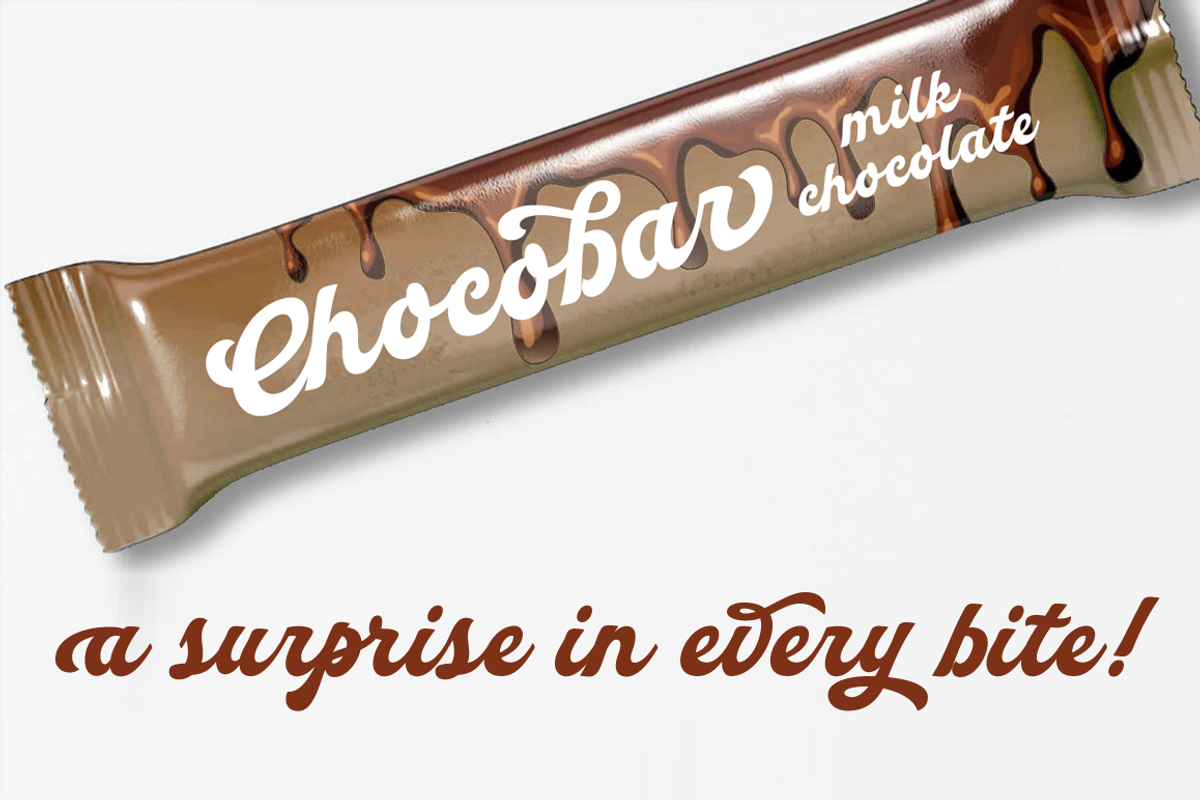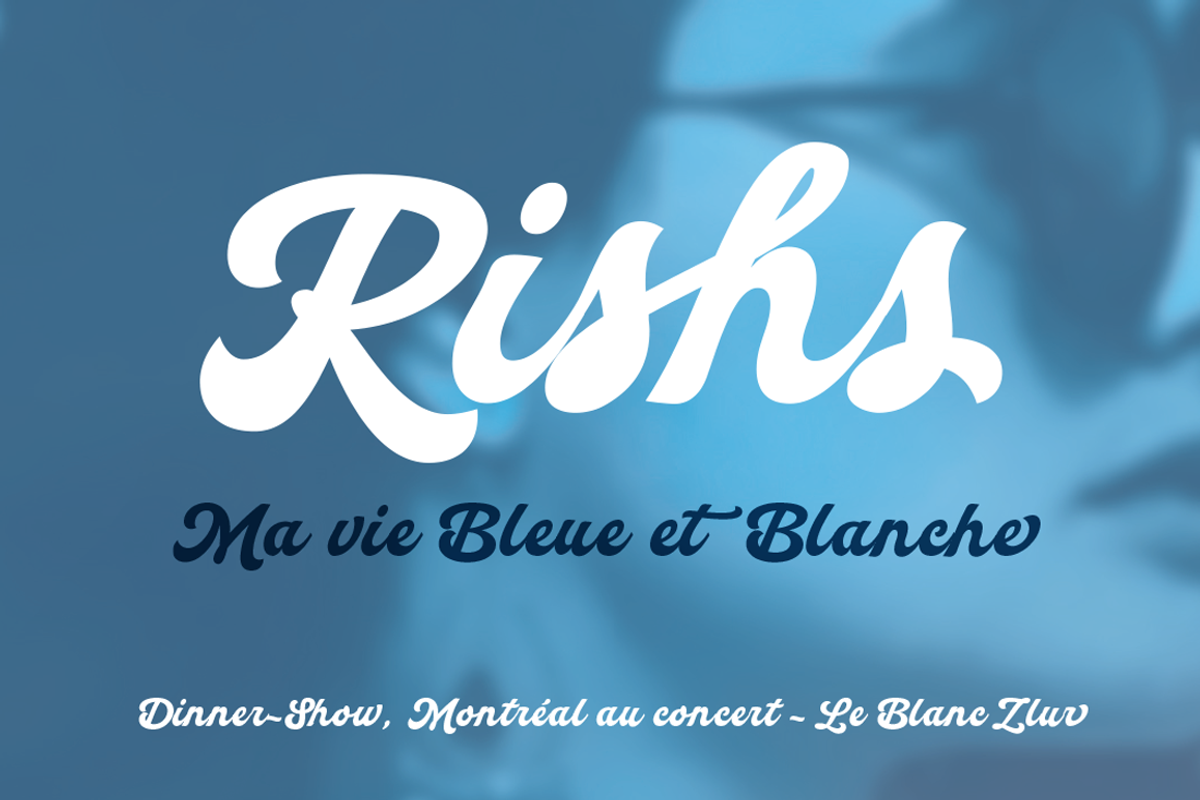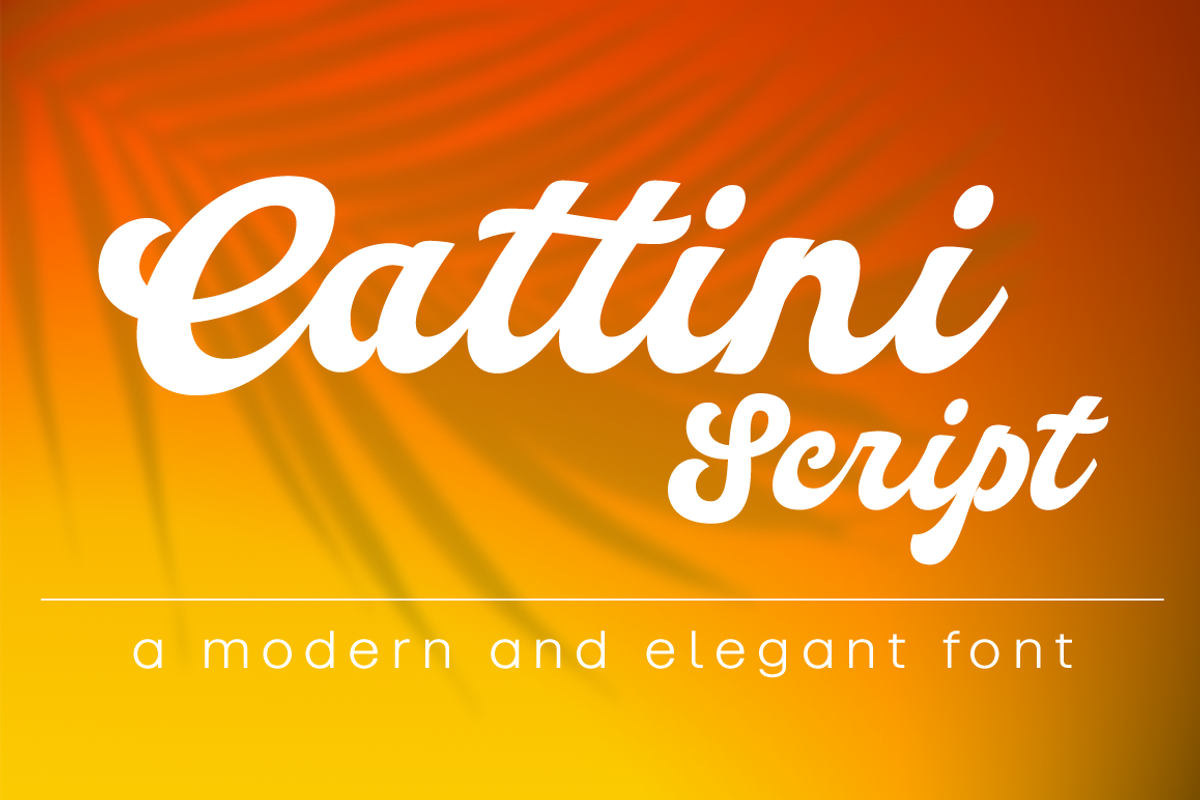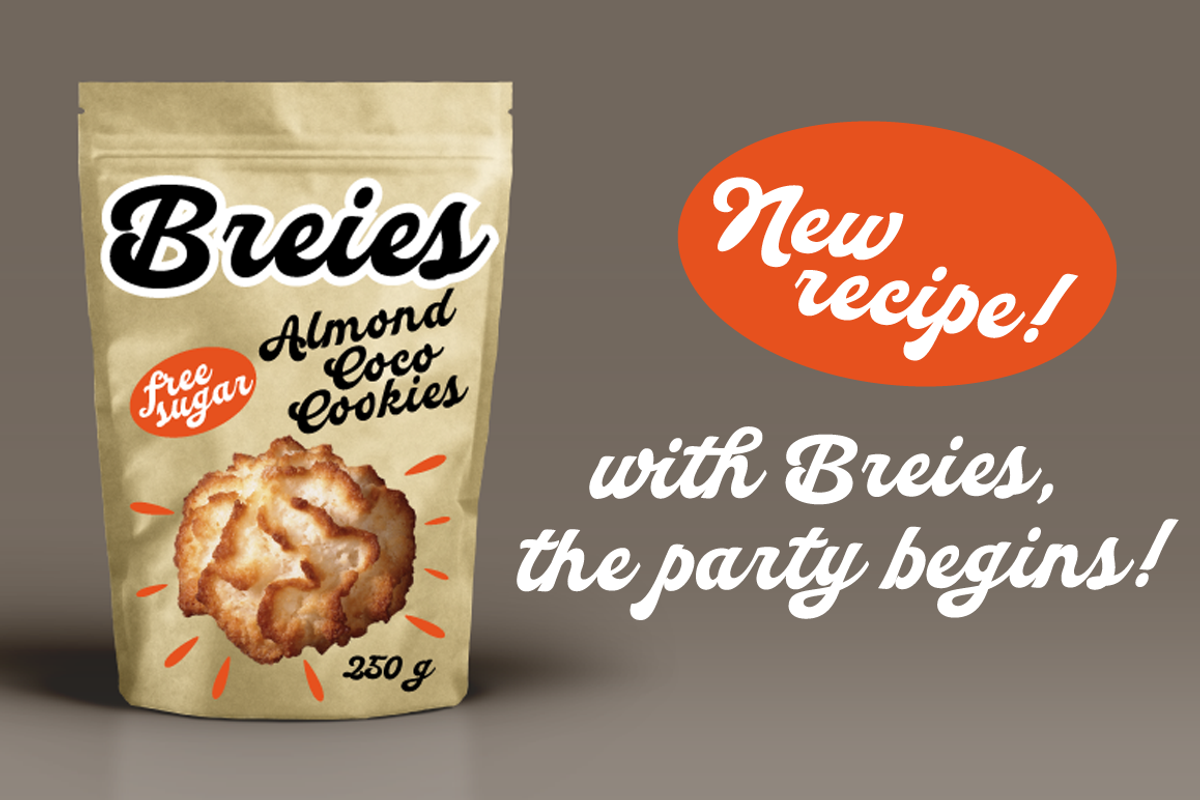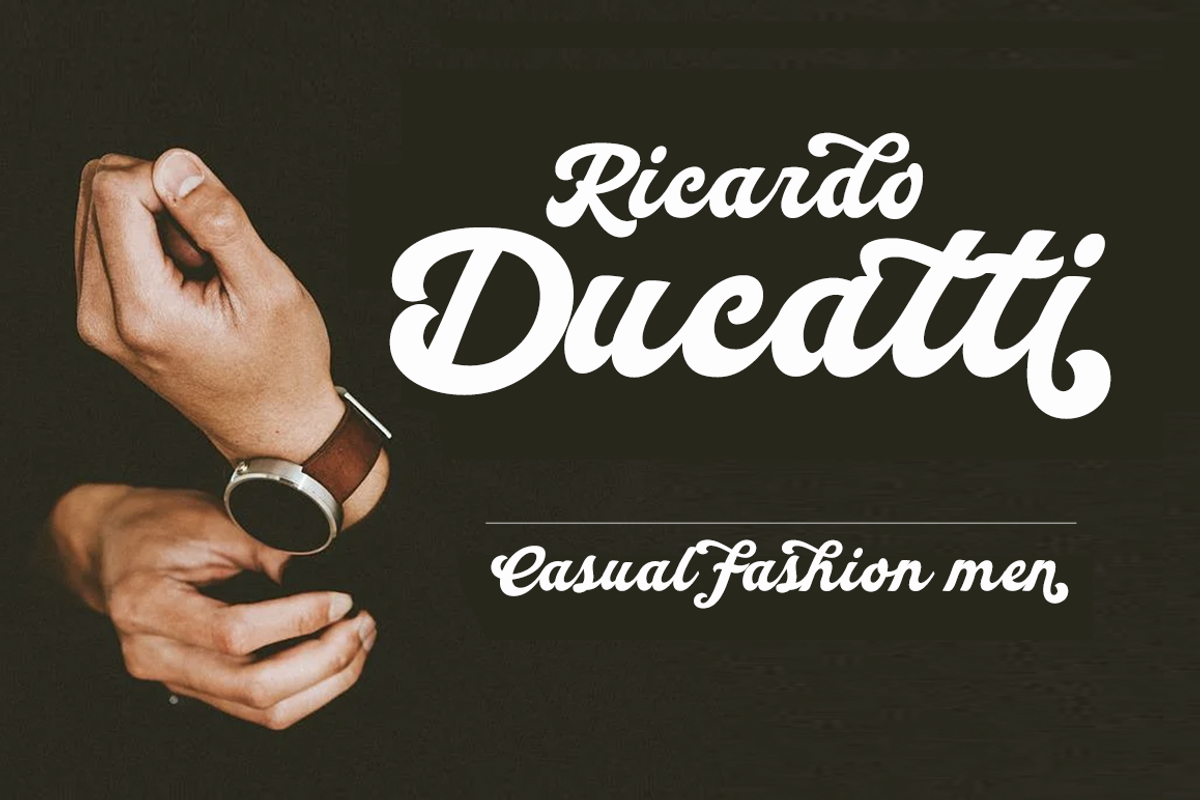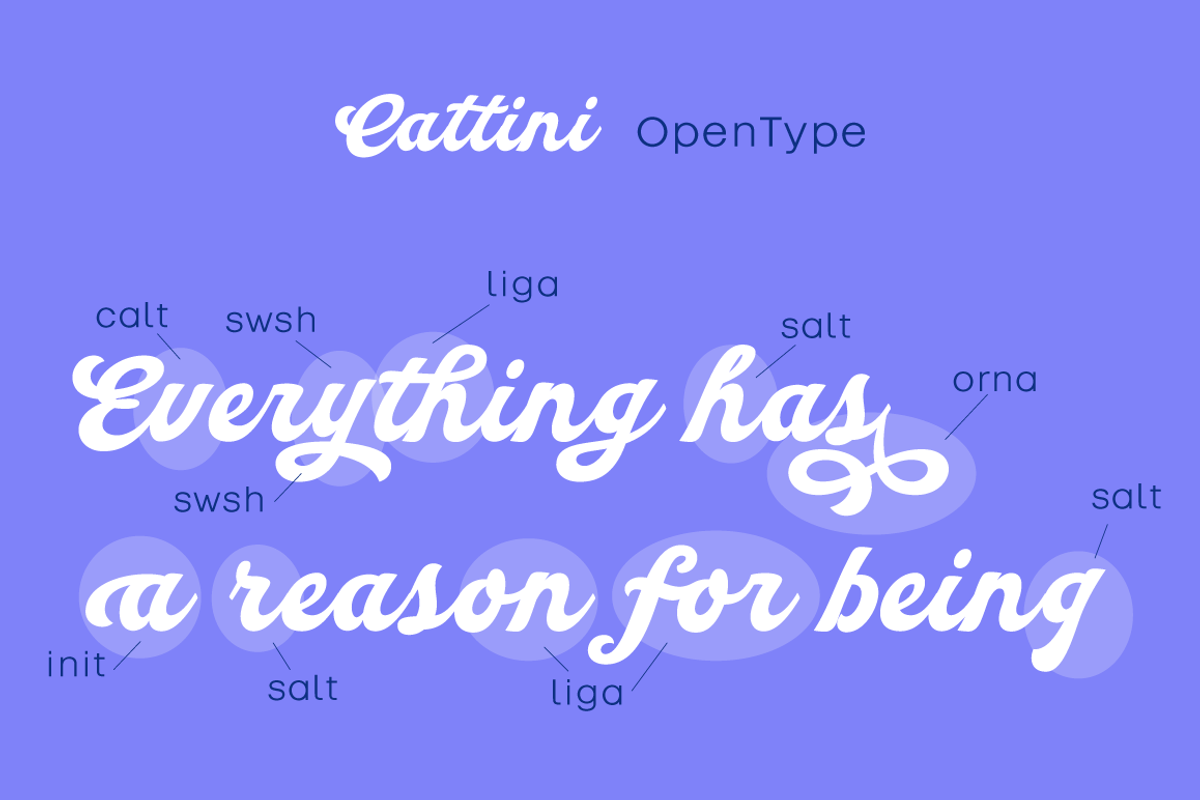
Cattini Script
Design: Carine de Wandeleer Publisher: Eurotypo
Cattini Script font is a casual and organic, perfect combination between elegance and informality!
The OpenType features include standard and contextual alternates, swatches, initial forms and ligatures. All this makes the text lively and bouncy, without the monotony of obviously repeated letterforms.
Cattini font can be the option to create headlines, logos and posters for branding and packaging, invitations, greeting cards, magazines and book covers, children's material, fashion, and where you want it.